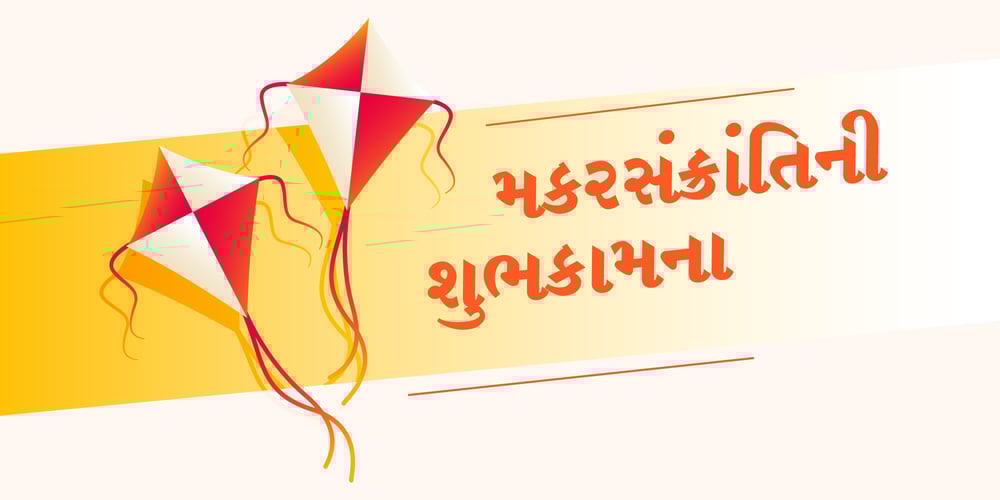
Shree Gujarati 3313 Font Family was designed by Modular Infotech and published by Modular InfoTech. Shree Gujarati 3313 contains 10 styles and family package options. ShreeGuj3313 is a Gujarati Text font widely used in Content creation, Magazines, and Invitation cards. In India, it is predominantly used by news agencies and custom publications. This font family offers three weights: Regular, Demibold and Bold. It supports various conjuncts, making it ideal for producing visually appealing text articles. This font is widely used to create documents for wedding cards.